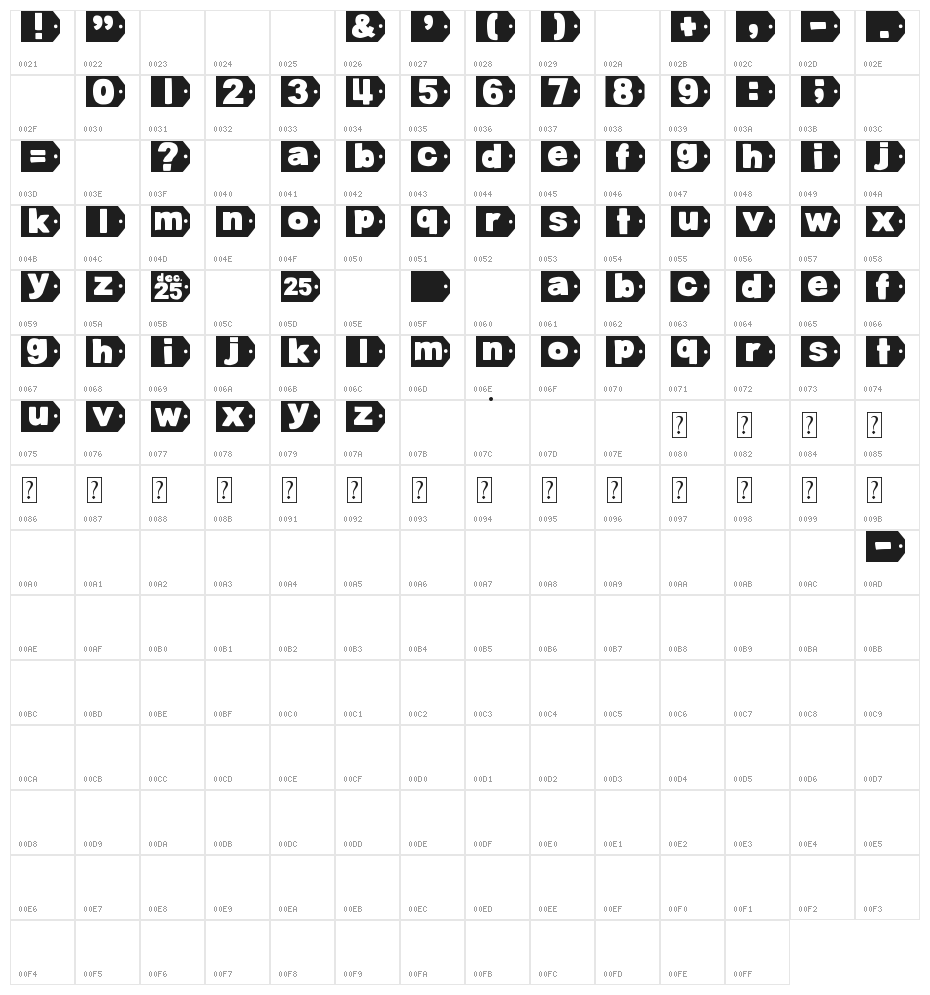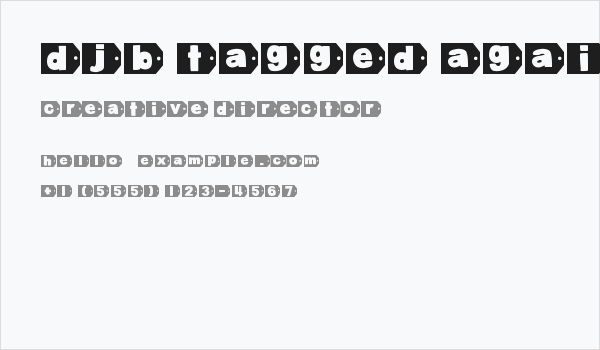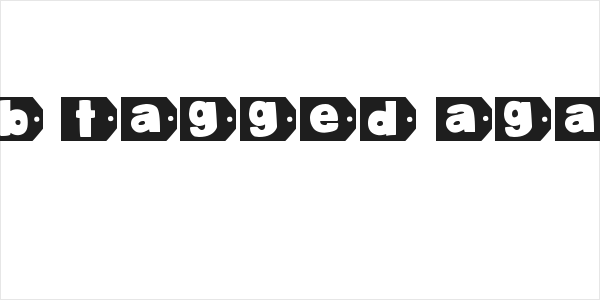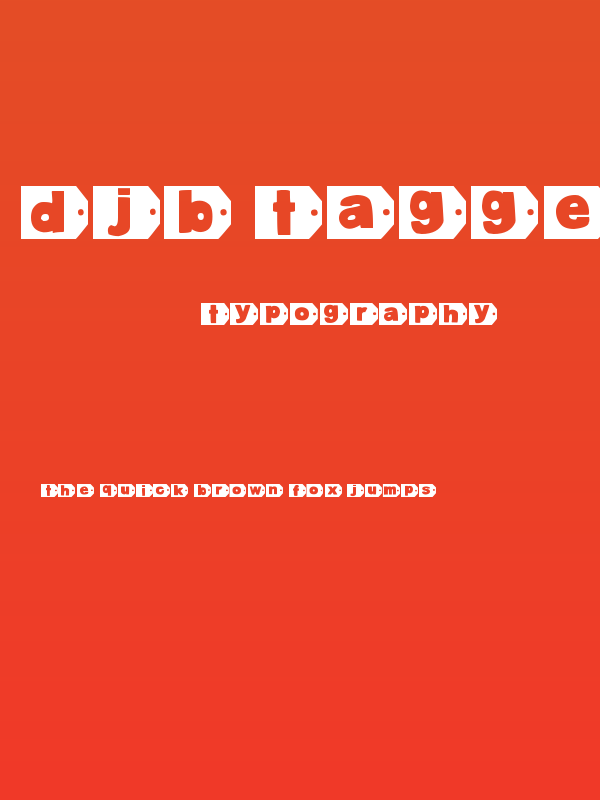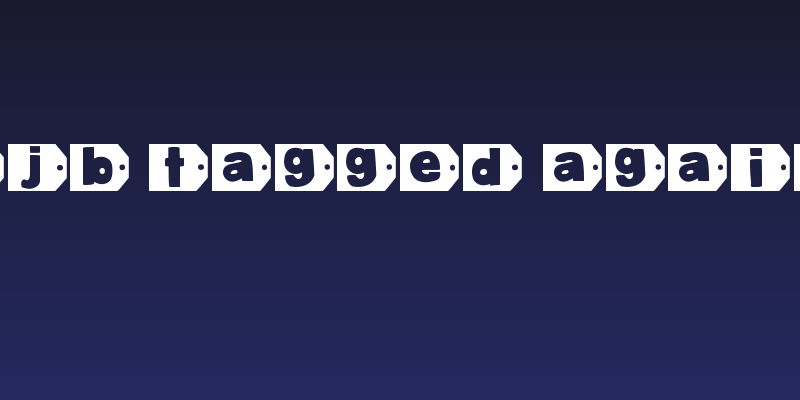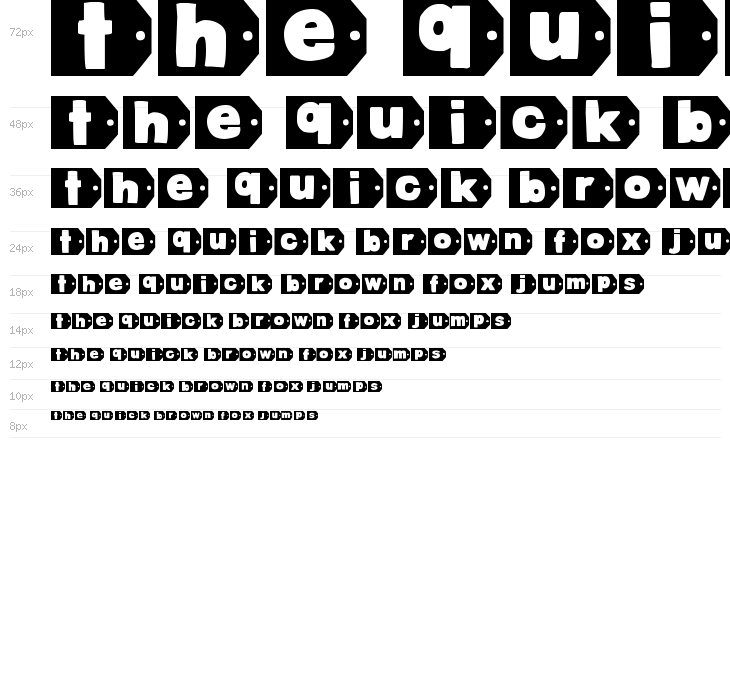
DJB Tagged Again Font
DJB Tagged Again Description
This font features a bold, playful style with each character enclosed in a tag-like shape, giving it a unique, decorative appearance. The letters are uppercase and lowercase, with numbers and a selection of special characters. The design is reminiscent of labels or tags, with a strong emphasis on geometric shapes and high contrast between the thick, solid strokes of the letters and the negative space around them. The font's distinctive style makes it stand out, ideal for creative and eye-catching designs.
| Proposed Projects | Ideal for creative projects such as posters, invitations, branding, and packaging where a unique and playful aesthetic is desired. |